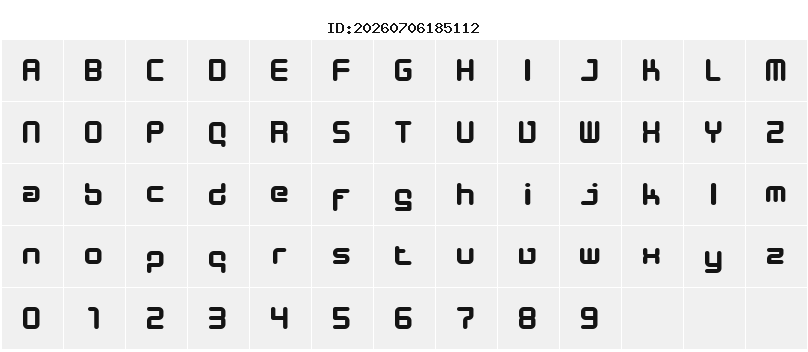
• Font Name: Designer Block
• Full Font Name: Designer Block
About Designer Block.ttf
Designer Block.ttf is a modern, elegant sans-serif font designed for ultimate readability and visual harmony. Perfect for branding, headlines, web design, and print materials.